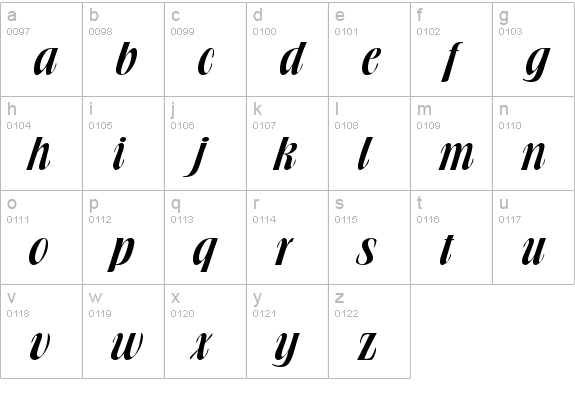
Brackenhaus Font Details
Brackenhaus font is a modern and elegant typeface that exudes sophistication and style. With its sleek lines and classic design, Brackenhaus is perfect for a wide range of design projects, from branding to editorial layouts. This versatile font is sure to make your text stand out and leave a lasting impression on your audience. What's even better is that Brackenhaus font is completely free to download at FontsMarket.com! Yes, you read that right – you can enhance your designs with this stunning font without having to spend a dime. So why wait? Head over to FontsMarket.com now and get your hands on Brackenhaus font to take your projects to the next level.